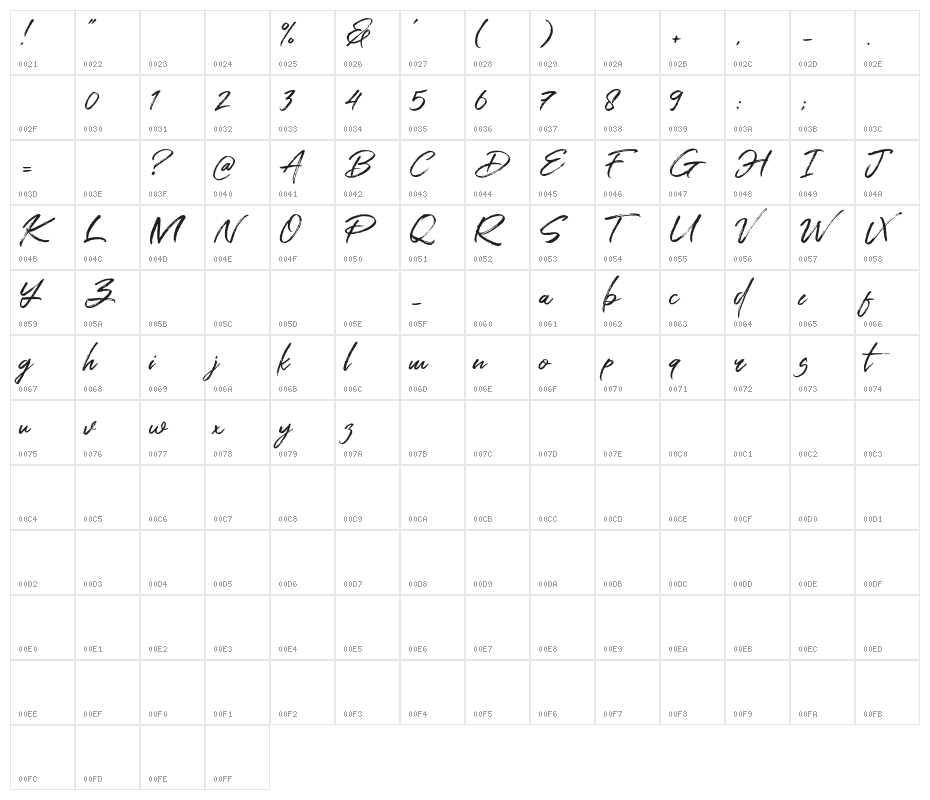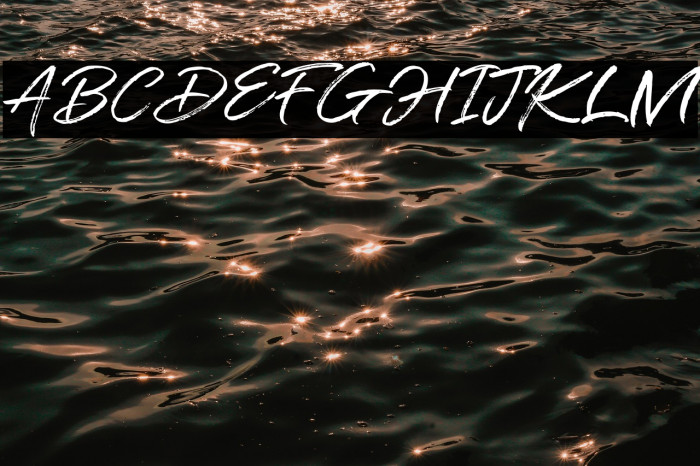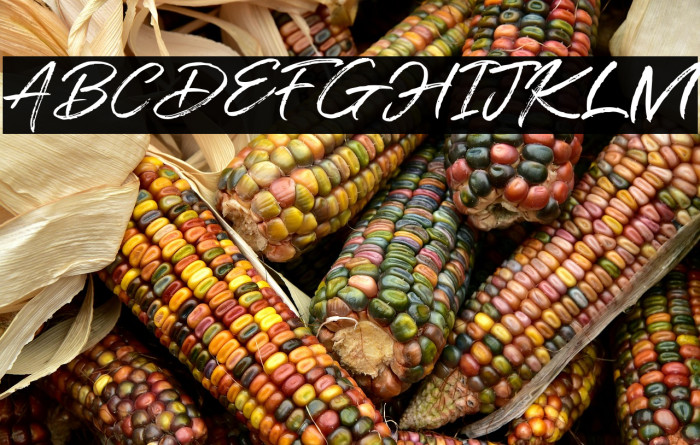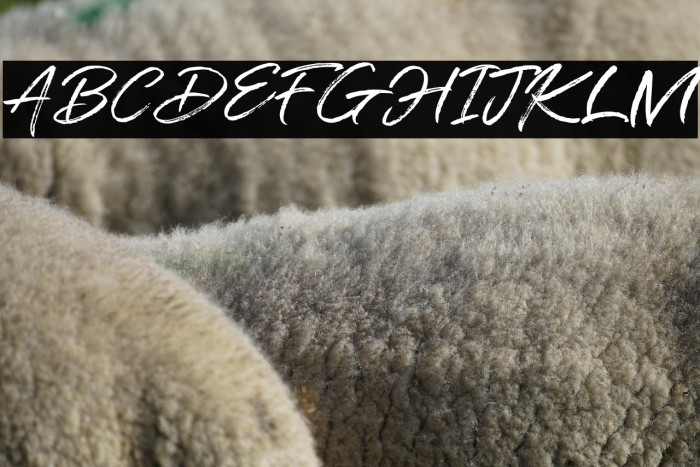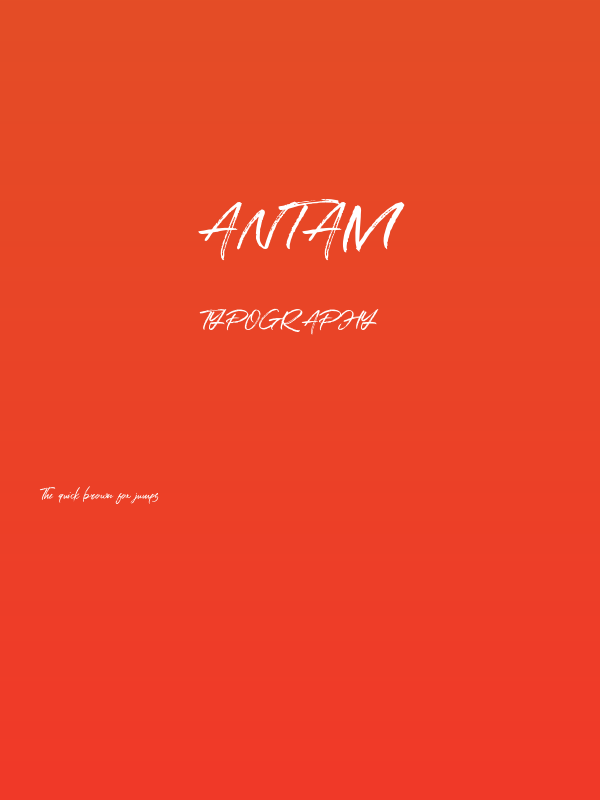
Antam Font
Antam Description
This font exudes a dynamic and expressive style, characterized by its fluid, handwritten appearance. The letters are crafted with a natural flow, mimicking the strokes of a brush or pen, which gives it a personal and artistic touch. The uppercase letters maintain a consistent height, while the lowercase letters vary in size, adding to the organic feel. The numbers and special characters follow the same aesthetic, ensuring a cohesive look across all elements. The overall design is both elegant and bold, making it suitable for creative projects that require a touch of sophistication and flair.
| Proposed Projects | Ideal for wedding invitations, greeting cards, branding, and artistic posters. |